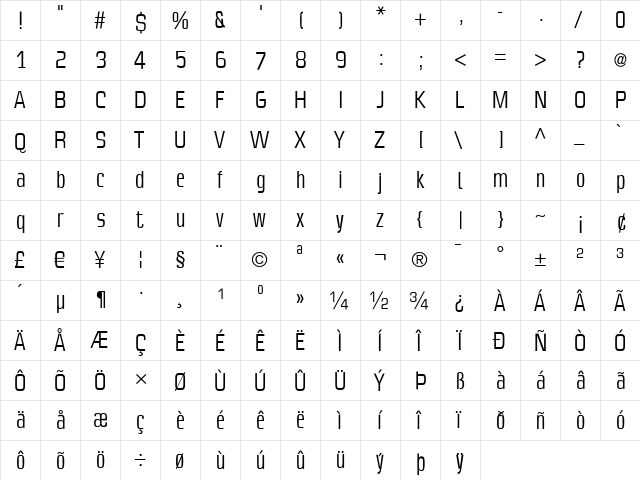
SlimSans Regular
Design Context for SlimSans Typeface
SlimSans is a composed and adaptable typeface that performs quietly and consistently across a wide range of design contexts.